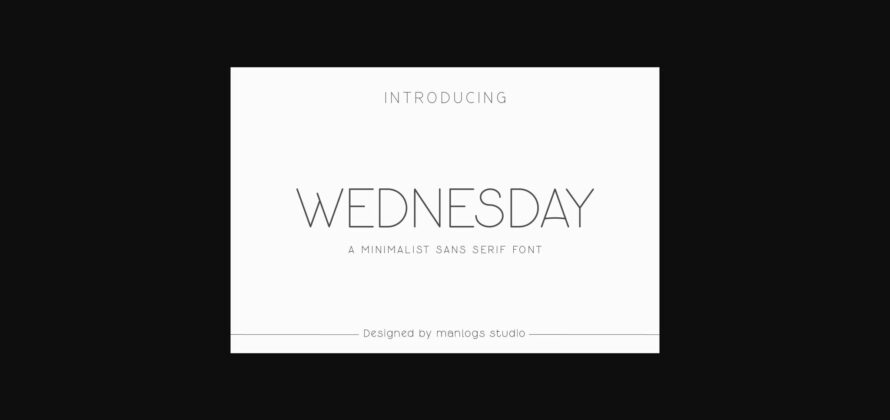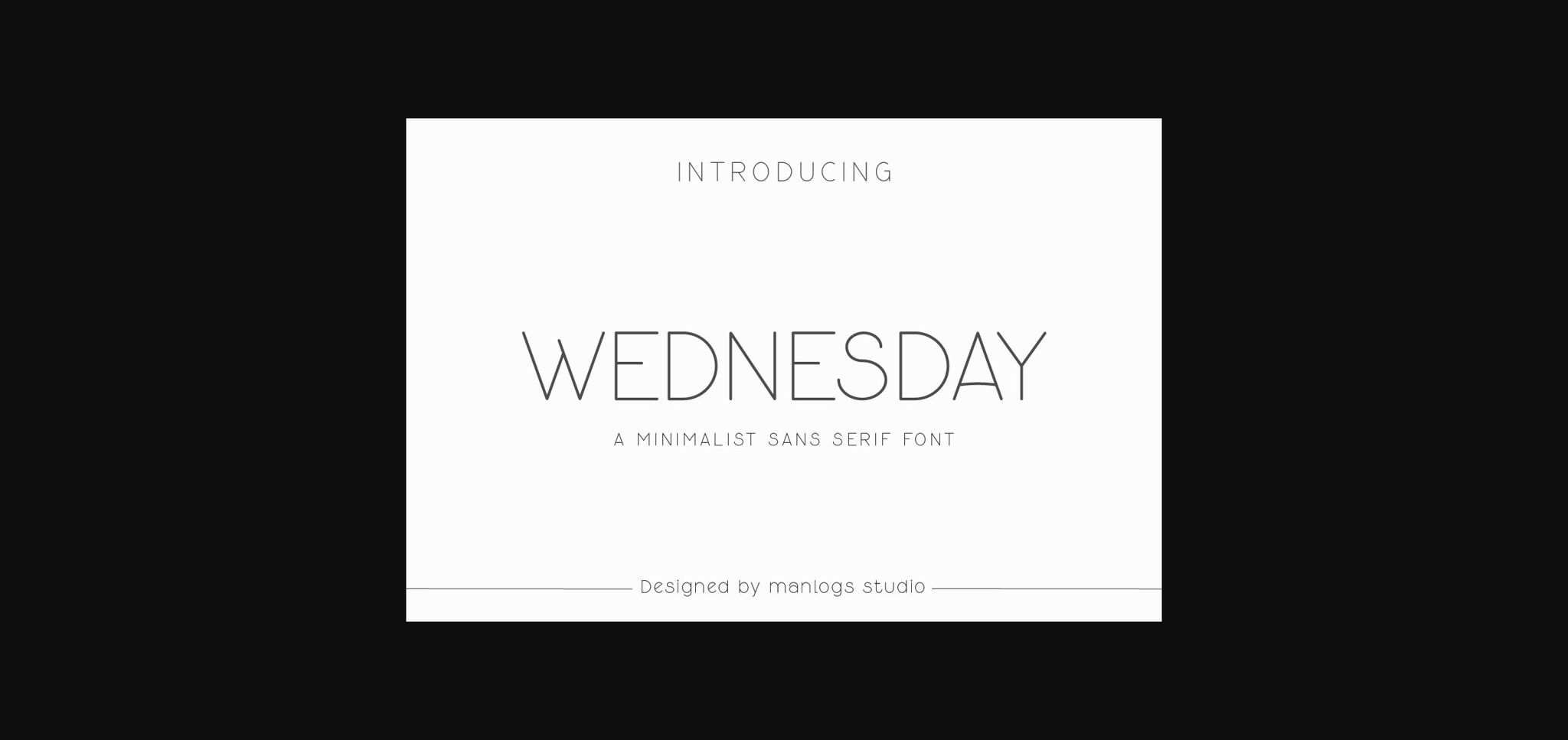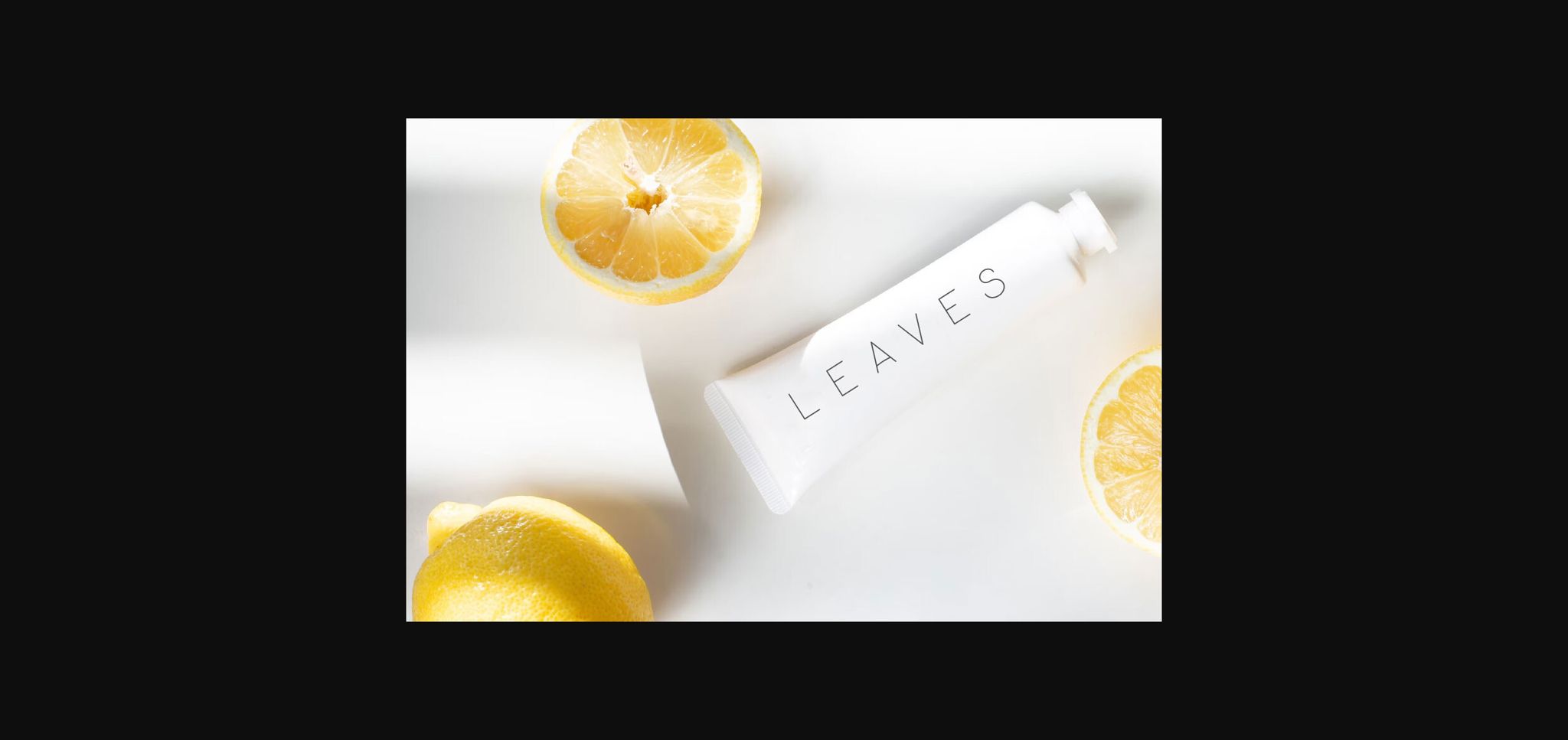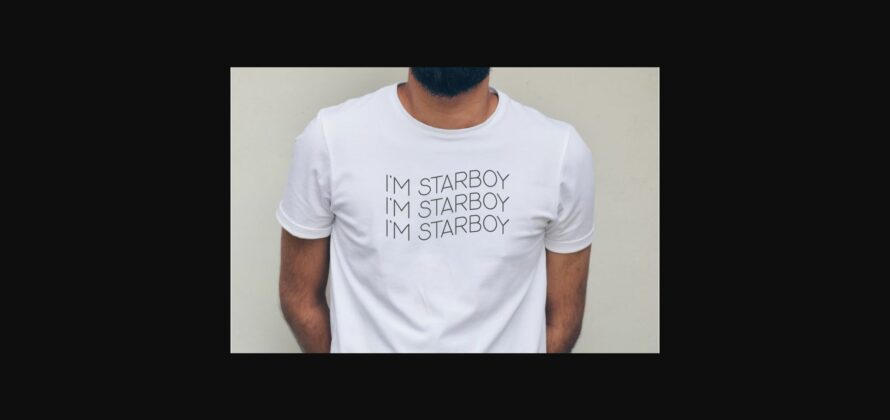
About Wednesday Font
Wednesday is a simple and smooth sans-serif font designed for a clean, retro look. With balanced vintage proportions, this font is perfect for creating a minimalist aesthetic in craft design, fashion products, wedding invitations, tote bags, packaging, tumblers, quotes, t-shirts, gift labels, logos, web design, branding, and more!